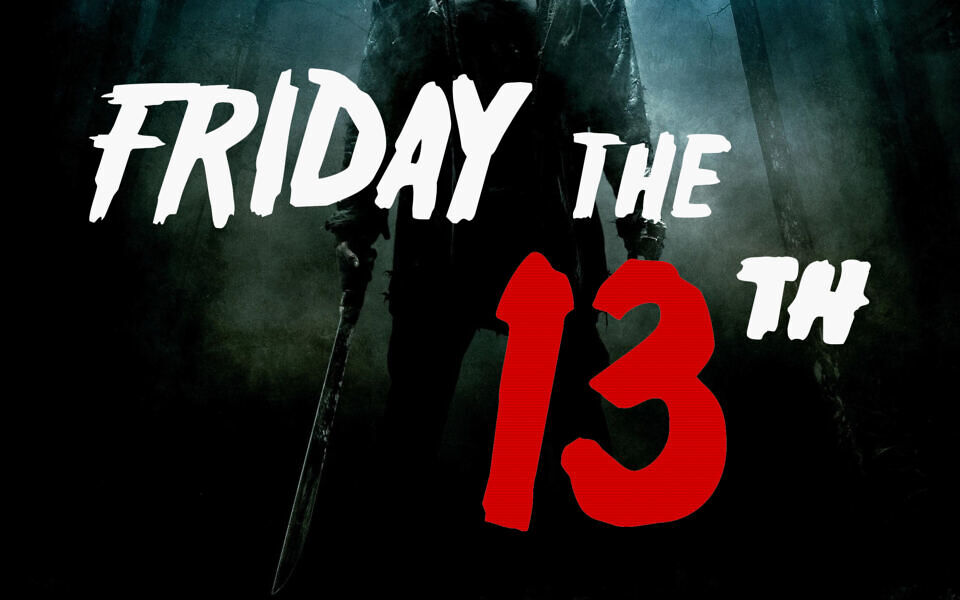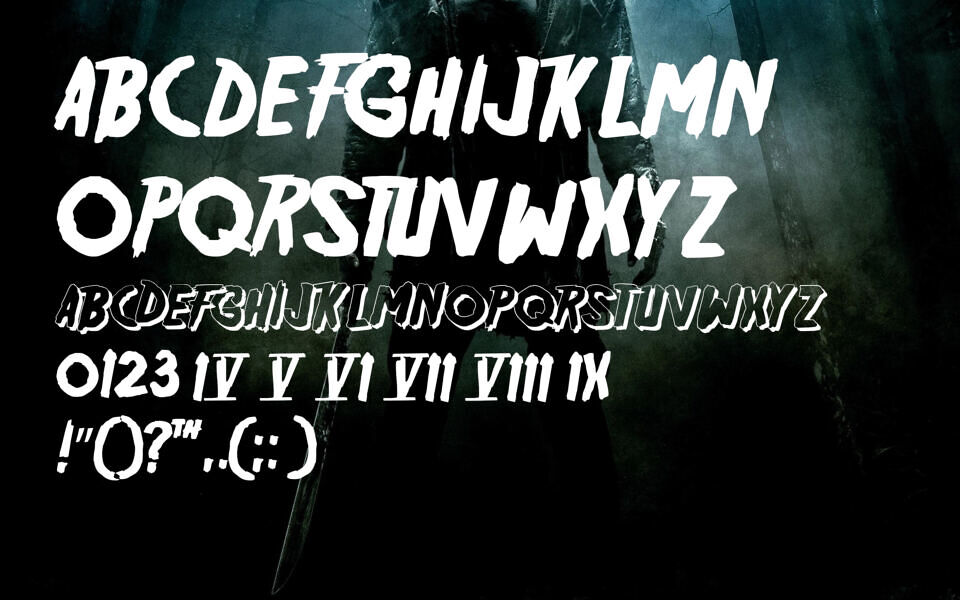
Friday 13 is a bold horror-style font designed by Norfok Incredible Font Design. Its design features a jagged, distressed aesthetic that captures the gritty, slasher-film inspiration of the 1980s – more specifically inspired by the Friday the 13th movie logo font.
The font family includes several variations, such as the base style and bonus files, offering versatility for spooky headers, posters, or thematic design projects. It leans heavily into the dark, chaotic visual language common in classic cinematic horror branding, making it ideal for high-impact, eerie typography.